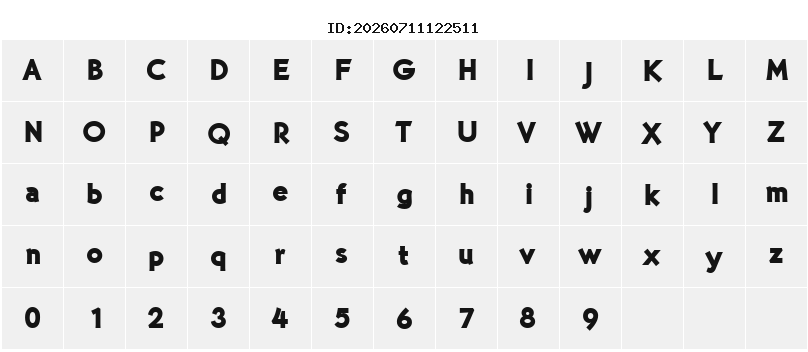
MartinGotURWTExtBol Preview
• Font Name: MartinGotURWTExtBol
• Font ID: URW:MartinGotURWT-ExtrBold:2000
• Full Font Name: MartinGotURWTExtBol
• PostScript Name: MartinGotURWT-ExtrBold
About MartinGotURWTExtBol.ttf
MartinGotURWTExtBol.ttf is a modern, elegant sans-serif font designed for ultimate readability and visual harmony. Perfect for branding, headlines, web design, and print materials.